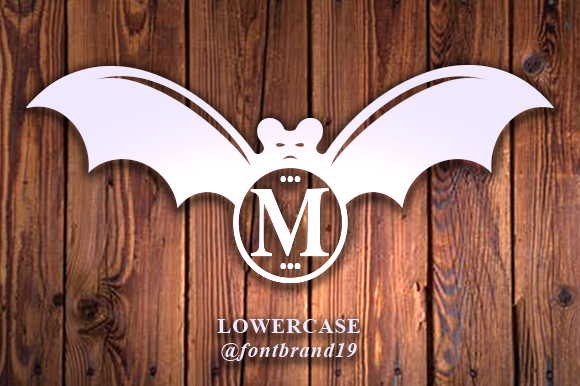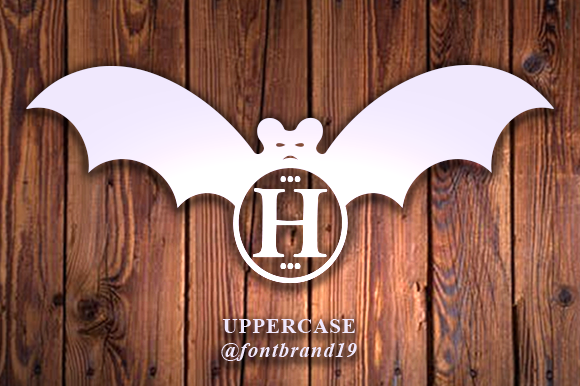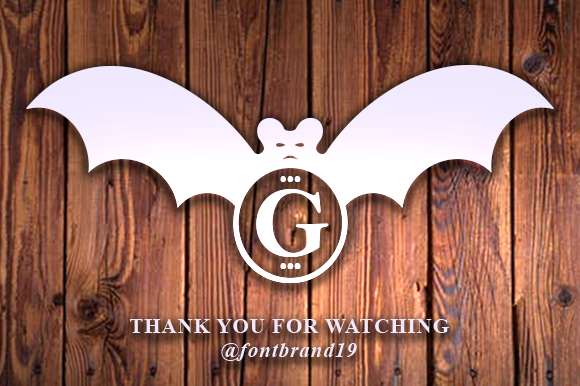
Cute Bat Halloween Font: Add a Spooky Touch to Your Designs
As the spookiest time of the year approaches, designers and crafters are on the lookout for unique and eye-catching elements to add to their Halloween designs. If you’re looking to create some eerie and captivating content, look no further than the Cute Bat Halloween Font. This font is an incredibly unique and spooky decorative font that will make your designs stand out from the rest.
What is the Cute Bat Halloween Font?
The Cute Bat Halloween Font is a specially designed font that features adorable bat characters, perfect for adding a touch of spookiness to your Halloween designs. The font is made up of intricate and detailed designs, featuring bats in various poses and styles, making it an ideal choice for a wide range of design projects, from invitations and party decorations to social media graphics and more.
Why Use the Cute Bat Halloween Font?
There are many reasons why the Cute Bat Halloween Font is a must-have for designers and crafters. Here are just a few:
- Unique and eye-catching: The Cute Bat Halloween Font is unlike any other font out there. Its unique design and adorable bat characters will instantly grab attention and add a touch of spookiness to your designs.
- Versatile: This font can be used for a wide range of design projects, from Halloween party invitations and decorations to social media graphics, blog posts, and more.
- Customizable: You can customize the font to fit your design needs, adjusting the size, color, and style to match your brand or design style.
Cute Bat Halloween Monogram: Take Your Designs to the Next Level
But that’s not all. The Cute Bat Halloween Font also comes with a matching monogram, perfect for adding an extra touch of elegance and sophistication to your designs. The Cute Bat Halloween Monogram features a stylized bat character, surrounded by intricate details and ornate designs. This monogram is perfect for:
- Adding a personal touch: Use the Cute Bat Halloween Monogram to add a personal touch to your designs, such as on party invitations or decorations.
- Creating a logo: The Cute Bat Halloween Monogram can be used as a logo for your business or brand, adding a touch of spookiness and whimsy.
- Enhancing your designs: Add the Cute Bat Halloween Monogram to your designs to give them an extra boost of creativity and visual interest.